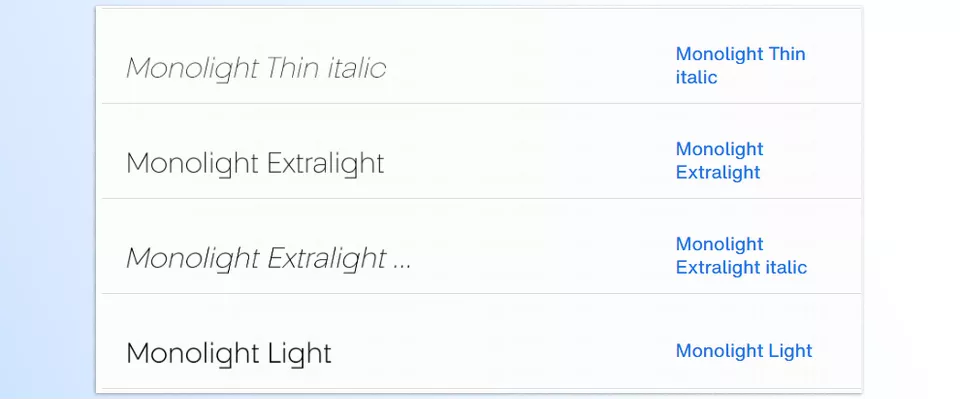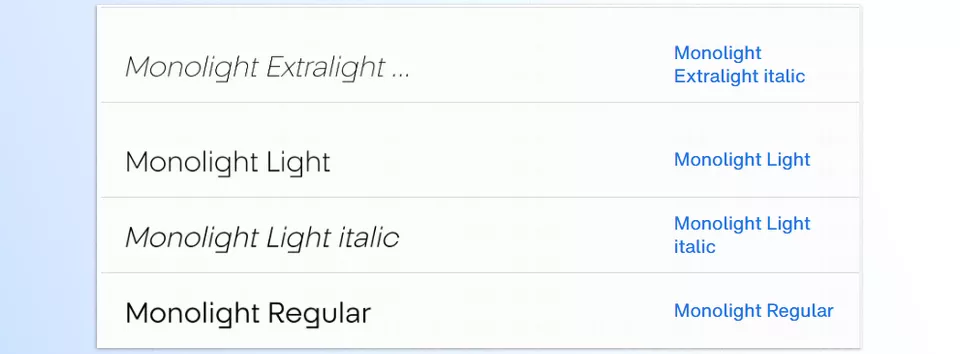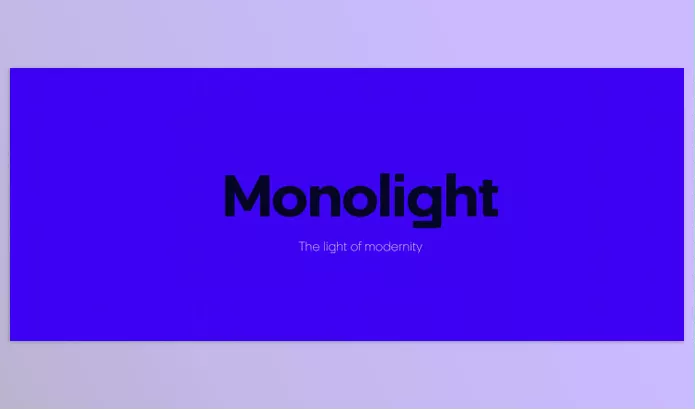
Monolight Font Family pairs all the elegance of modern designs while being versatile enough for a myriad of projects, making it a perfect fit for a wide set of applications. The low-contrast design alongwith highly creative and professional typographic features aid in providing great readability alongwith high levels of customization.
- Slim to Heavy Weights: Offers an extensive range for all design aspects, making it suitable for different weights.
- Matching Italics: All weights have matching italics, meaning their texts can be made far more engaging.
- Letter Style customizations: Multiple options allow for custom lettering style, which in turn enables unique designs.
- Old Style Numerals: Professional documents are now enhanced with greater organization by these.
- Tabular Numerals: Widely used in finance, accounting and marketing, these are preferred for precise table formatting.
- Case Sensitive: Uppercase and Lowercase letters are designed in a blended manner to work together harmoniously.
- Low Mortise: Guarantees a clean, modern feel yet allows for amazing readability on any project.
Image 1: Elegant and modern design for all your communication projects.
Image 2: Customizable options for a personalized touch in every design.